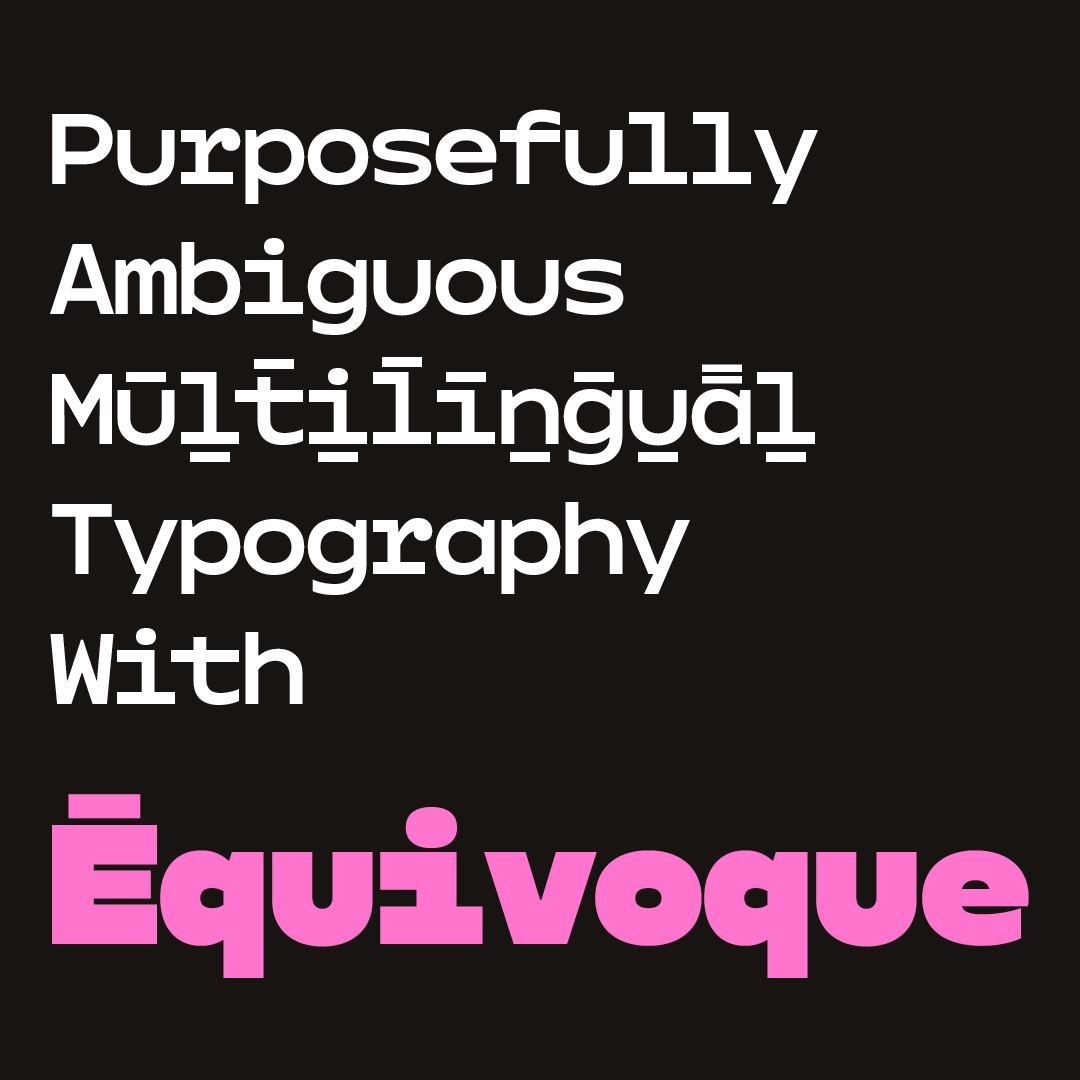
About Équivoque
Équivoque is a monospace sans serif for display use. Its biggest feature is the unified diacritic shape, which is the result of the designer’s observation in the non-English vernacular lettering and typography where cedillas can be just dots and dieresis can be just a bar; the exact shapes of diacritics do not seem as important so long as they appear where they’re expected. This gave him the hypothesis that people rely on their knowledge and context more than shape, which was tested and proven right (also in diacritics-heavy languages like Vietnamese). Even in genuine moments of confusion, it is hopefully apparent that this typeface is not being serious.
Toshi Omagari